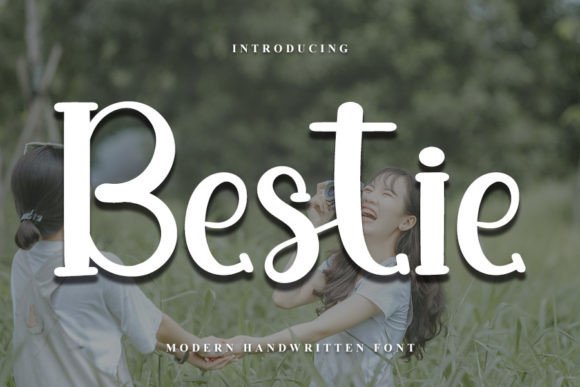
The Bestie Font: A Timeless, Elegant Companion for Your Design Journey
I’ll never forget the moment I stumbled upon the Bestie font. I was working on a project for a client who wanted an elegant, handwritten touch to make their brand stand out. As I scrolled through font after font, nothing seemed quite right – until I saw Bestie. Its beautiful, flowing script and distinct style instantly captured my attention. I knew right then and there that I had found the perfect fit.
What I Love About Bestie Font
• ✨ Elegant and Timeless Style: Bestie boasts an incredibly distinct and timeless style that adds a touch of sophistication to any project.
• ✅ Versatility: This font is perfect for a wide range of projects, from branding and advertising to packaging and personal crafts.
• 💫 Readability: Despite its elegant nature, Bestie remains highly readable, even at smaller sizes.
• 🎨 OpenType Features: Bestie comes with a range of OpenType features, including glyphs and stylistic alternates, giving you plenty of creative options.
While Bestie is an amazing font, there are a few things to keep in mind:
• ⚠️ Limited Use in Body Text: Due to its elegant and cursive nature, Bestie might not be the best choice for large bodies of text. It’s ideal for headings, titles, and short paragraphs.
• 🤔 Pairing with Other Fonts: Finding the perfect pairing font can be a bit tricky. You might need to experiment with a few combinations to find the one that works best for your project.
The Story Behind Bestie: A Designer’s Inspiration
Bestie was created with the intention of bringing a touch of elegance and timelessness to the world of typography. Inspired by classic calligraphy and the beauty of handwritten scripts, the designer aimed to craft a font that would be both versatile and beautiful. The result is a font that not only stands out but also complements a wide range of design projects.
Author Kongsi.Co
Q: Is Bestie suitable for body text?
A: While Bestie is incredibly elegant, it’s best suited for headings, titles, and short paragraphs due to its cursive nature. For large bodies of text, a more readable font might be preferable.